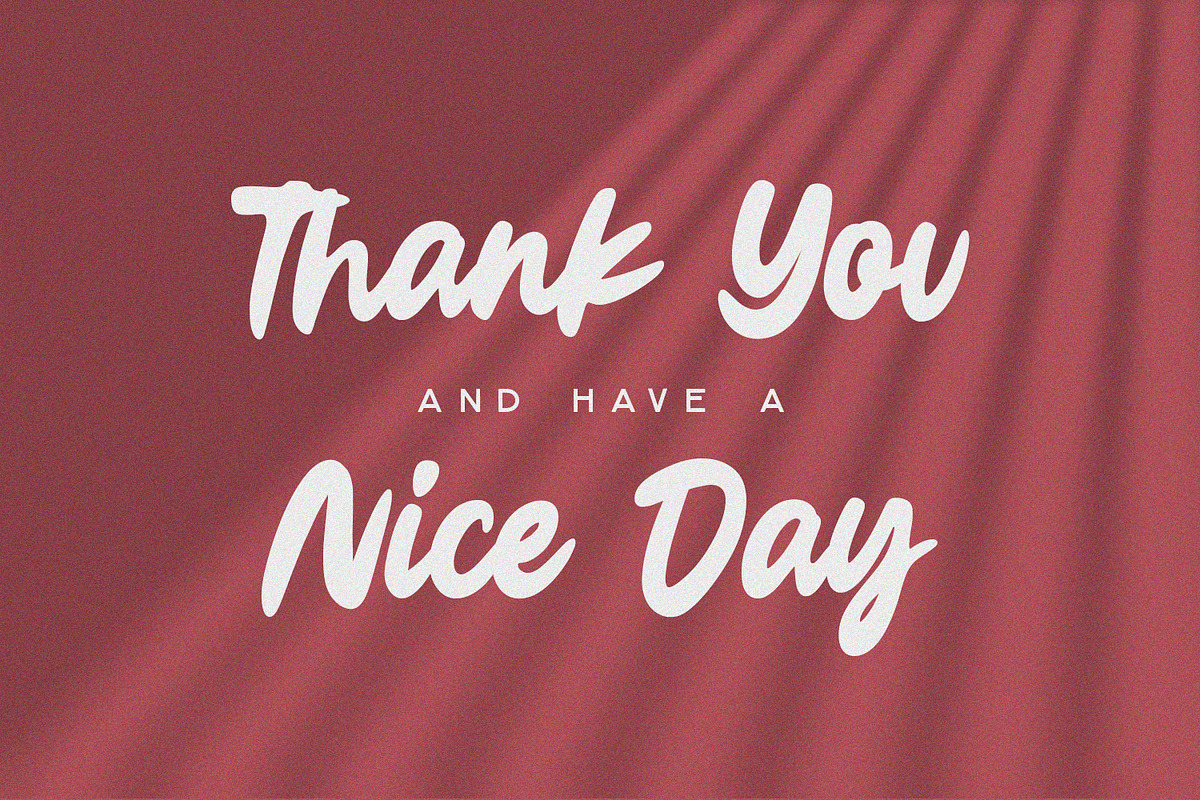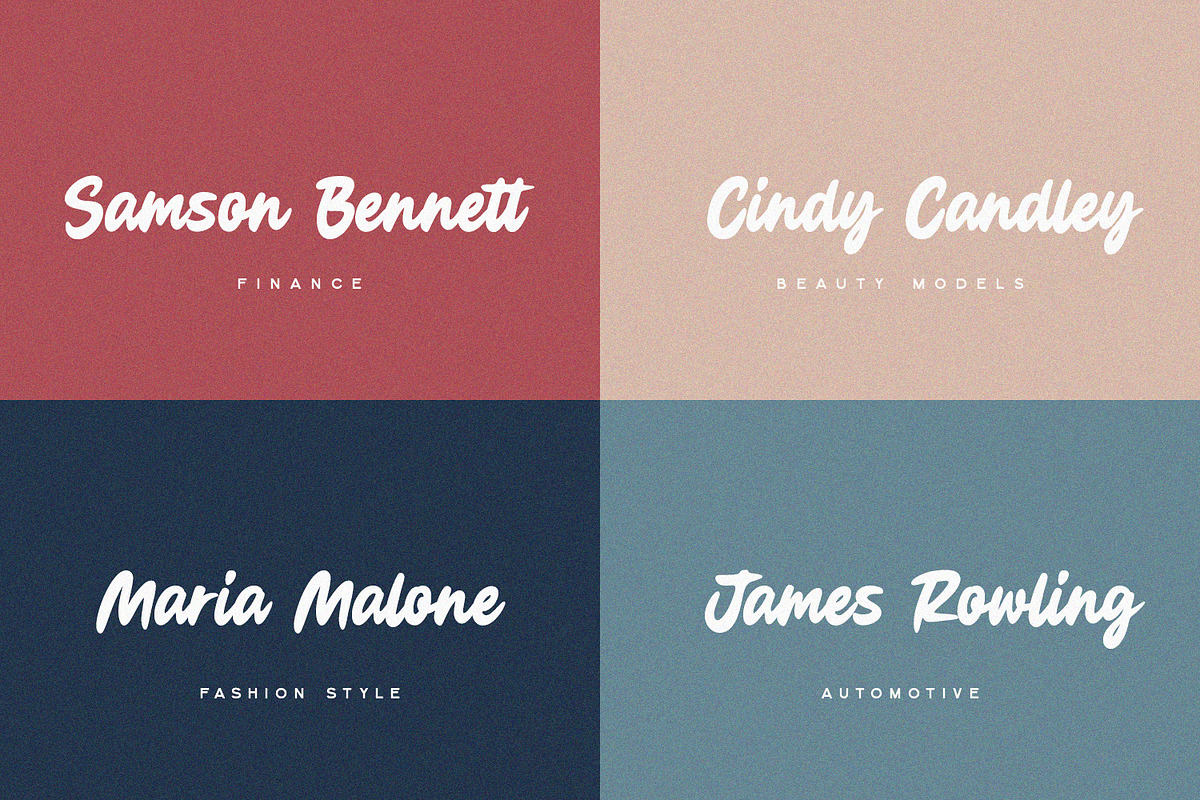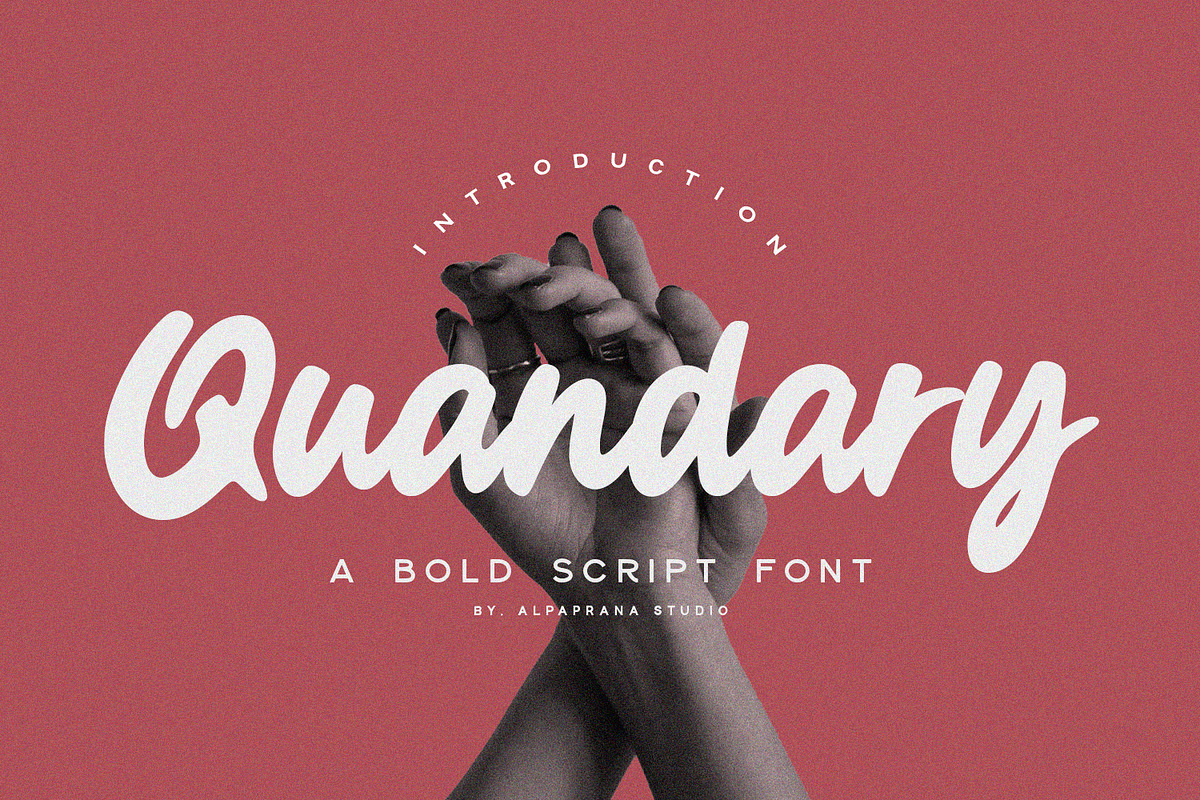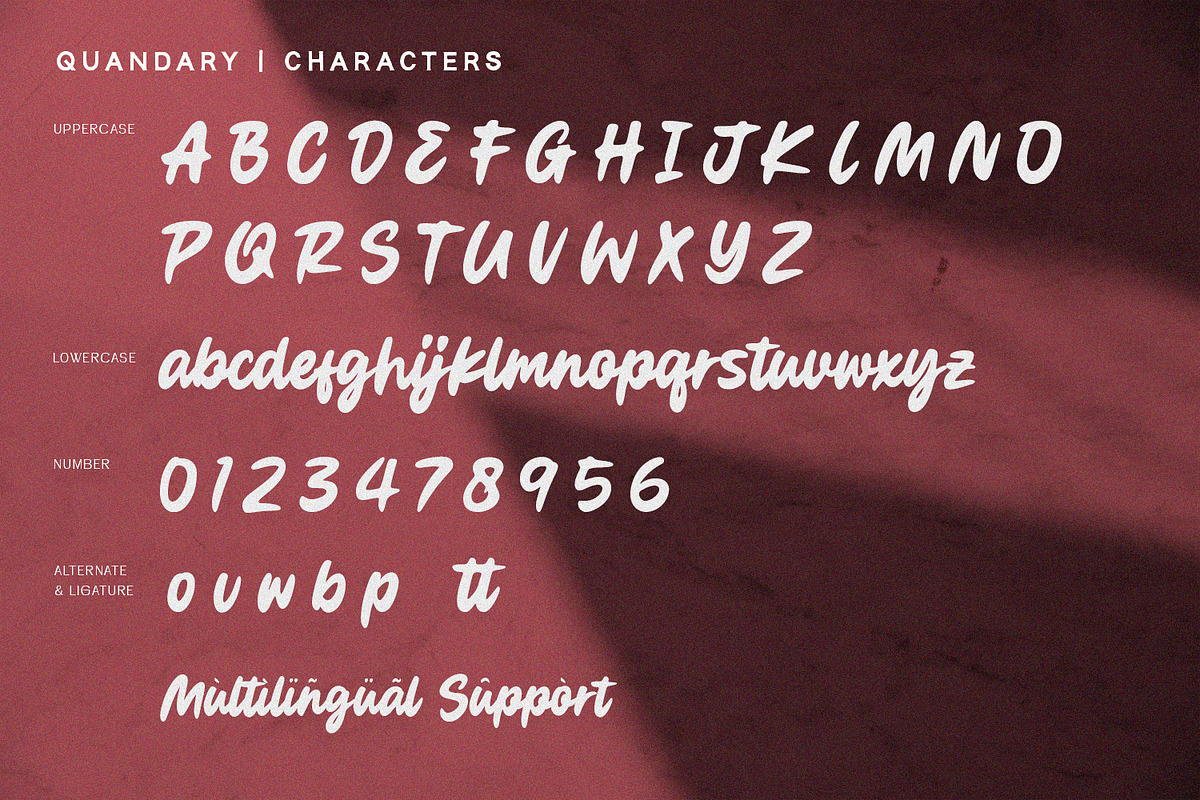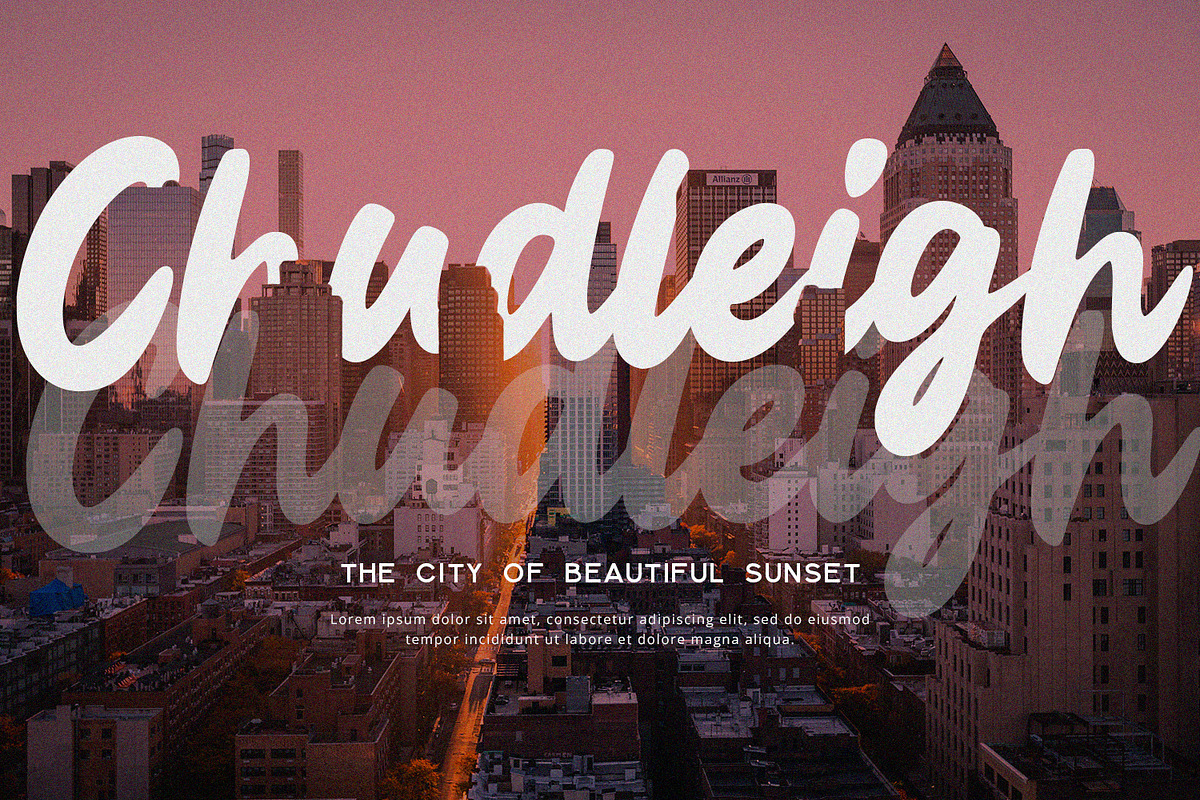
Quandary - Bold Script
Quandary is a script font with elegant and modern feels. It will be perfectly used for Branding, Logo Design, Lettering, Logotype, Clothing, Poster, magazine, packaging, posters, shopping bags, t-shirts, book covers, photography, special events and other design project.